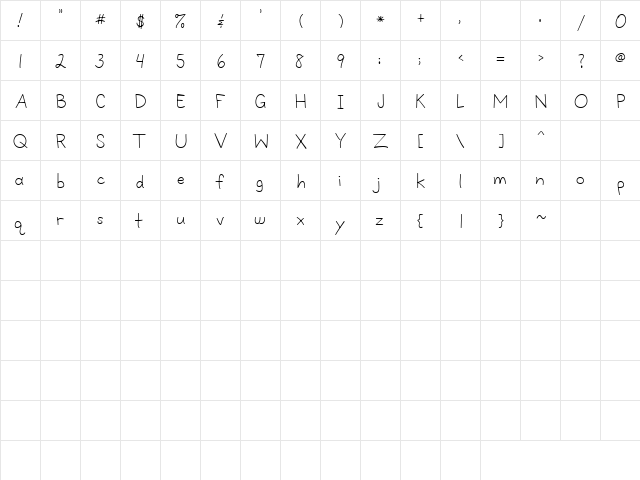
CK Simple Regular
Design Context for CK Simple Typeface
CK Simple offers clean, dependable letterforms without strong stylistic allegiance, making it a practical choice for designers who need flexibility.